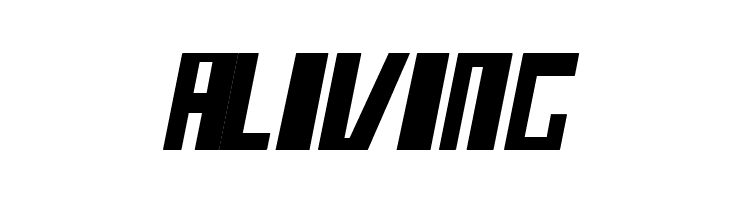
Wargate Normal-Regular Font
- Font: Wargate Normal-Regular
A futuristic, geometric font with segmented, angular letterforms.
A bold, geometric font with a futuristic and digital aesthetic.
A futuristic, 3D geometric font with bold, angular lines.
A futuristic, angular font with a tech-inspired, italic design.
A bold, geometric font with a futuristic and digital design.
A bold, italic, futuristic font with angular, geometric shapes.
A futuristic, geometric font with angular, segmented letterforms.
( Fonts by Press Gang Studios - Andeh Pinkard - www.pressgang-studios.com )
A bold, italicized font with a dynamic, angular design.